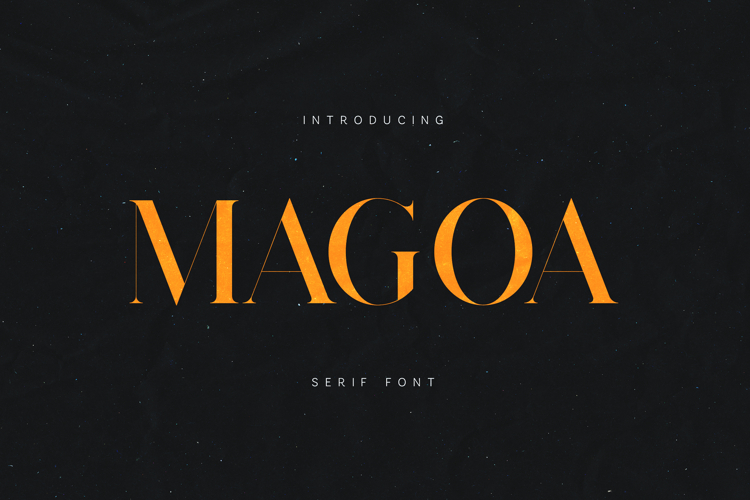
MAGOA Elegant Modern Serif Font
MAGOA is a refined modern serif typeface designed for sophisticated editorial and branding projects. With its elegant high-contrast strokes, sharp serifs, and graceful proportions, MAGOA delivers a strong visual presence while maintaining exceptional readability.
Inspired by contemporary fashion typography and modern magazine design, the typeface blends classic serif elegance with a clean modern structure. The carefully balanced letterforms create a luxurious and confident aesthetic that works beautifully across both digital and print environments.
MAGOA is perfect for projects that require a premium editorial look, including branding, luxury packaging, magazines, posters, websites, social media graphics, headlines, and logo design.
The font includes uppercase and lowercase letters, numbers, punctuation, symbols, and extended multilingual support, making it suitable for international design work.
With its striking contrast and elegant rhythm, MAGOA brings a modern editorial voice to typography.
Perfect For• Branding
• Luxury packaging
• Editorial design
• Magazine layouts
• Fashion campaigns
• Social media graphics
• Posters
• Logos & headlines
• Website typography
Features• Uppercase & lowercase
• Numbers & punctuation
• Elegant high-contrast serif style
• Clean editorial structure